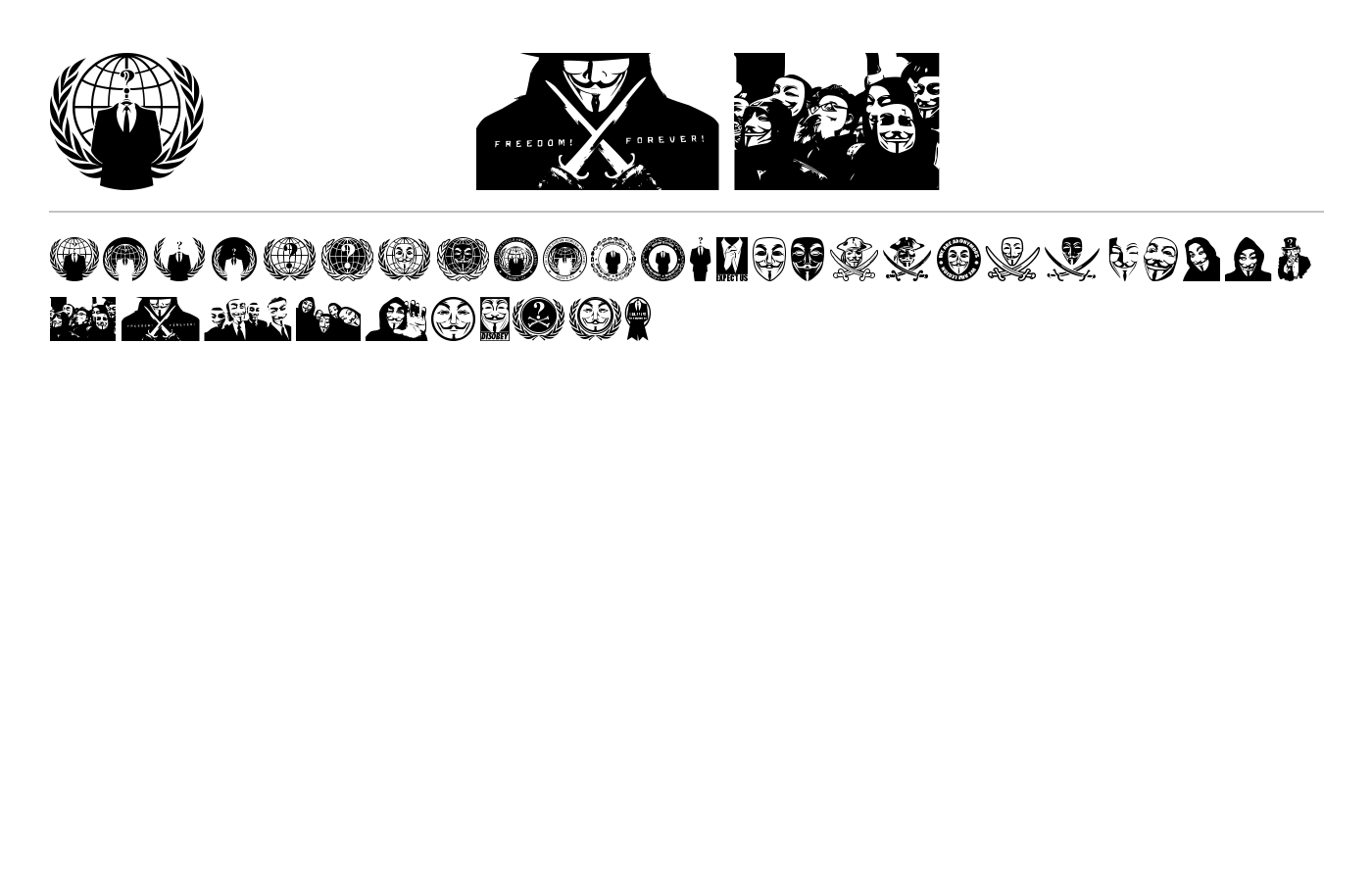
Anonbats Font is a unique symbolic font featuring bold, high-contrast black-and-white iconography inspired by the Anonymous movement and Guy Fawkes mask imagery. Rather than traditional letters, it consists of striking graphic emblems and silhouettes with a sharp, edgy style that conveys rebellion, anonymity, and activism. This font works best for creative projects, protest posters, and branding that seeks to evoke mystery and countercultural energy.